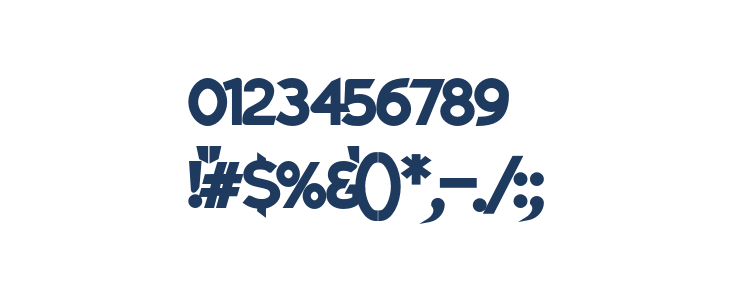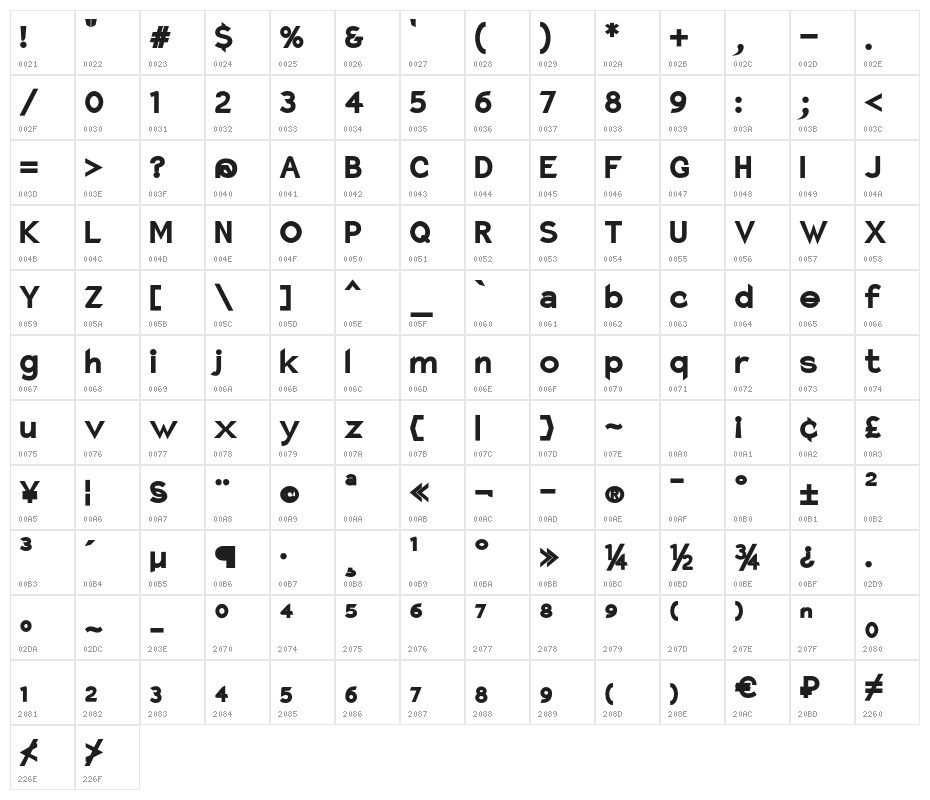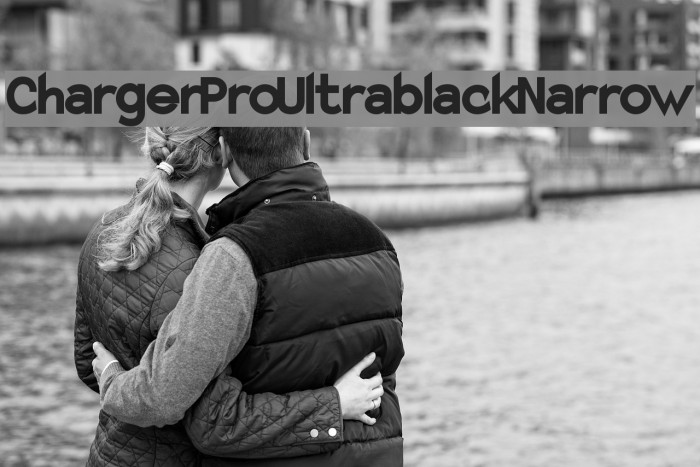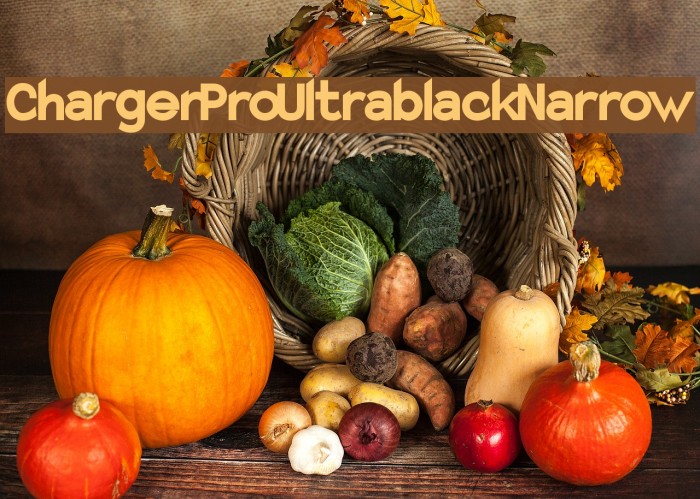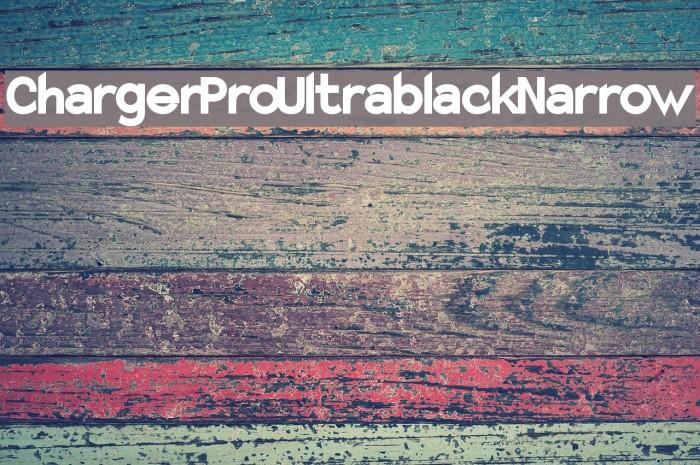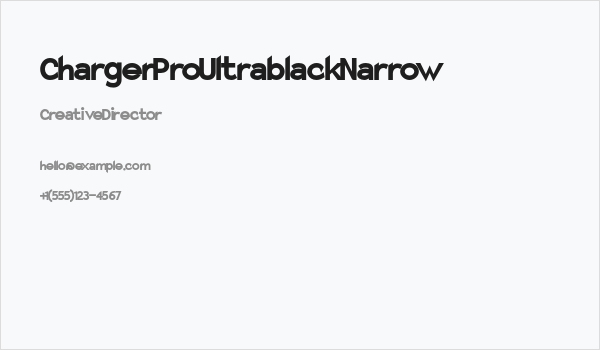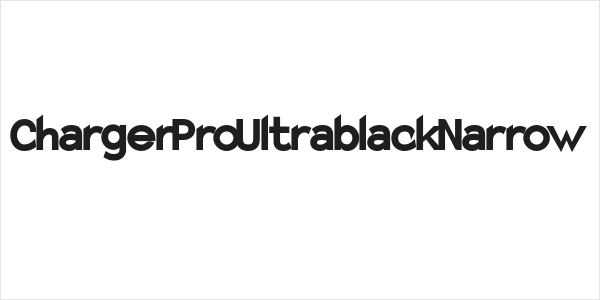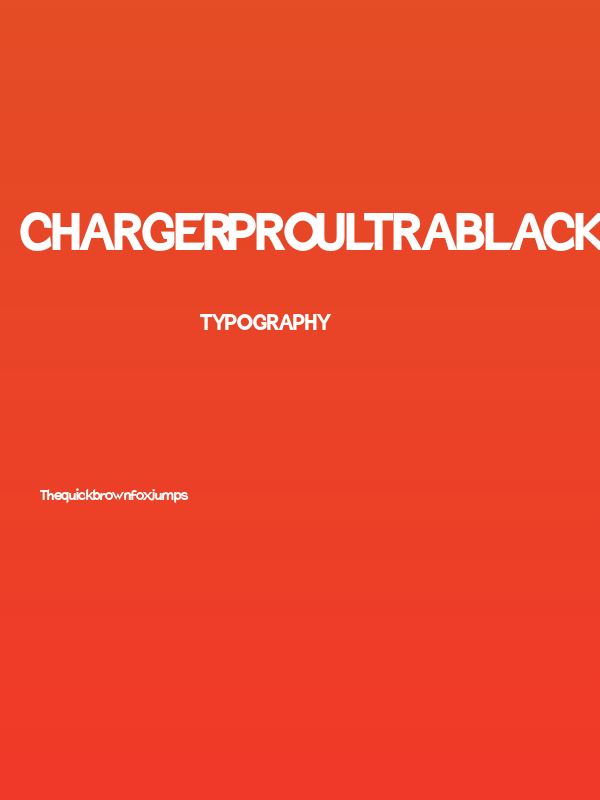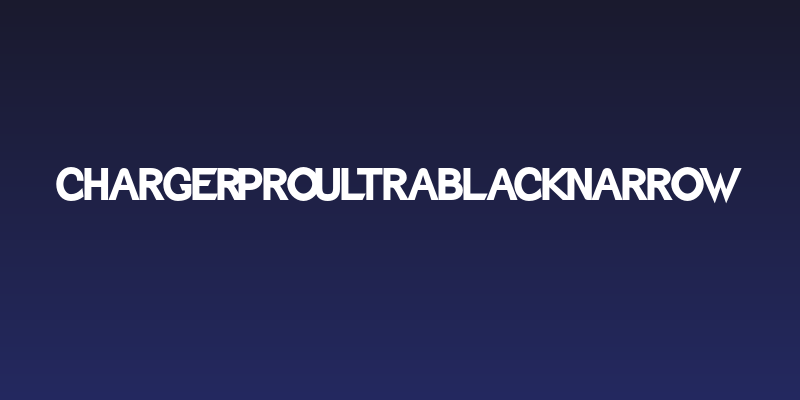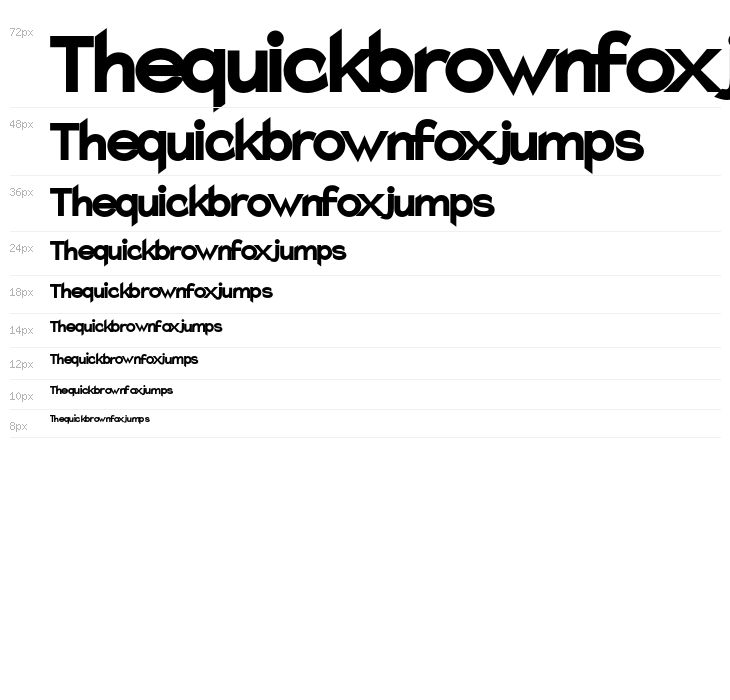
Charger Pro Ultrablack Narrow Font
Charger Pro Ultrablack Narrow Description
This typeface features a bold and striking appearance with thick, uniform strokes that create a strong visual impact. The characters are designed with a modern aesthetic, showcasing clean lines and geometric shapes. The uppercase and lowercase letters maintain a consistent style, with rounded edges that soften the overall look. The numerals and special characters are crafted to match the boldness of the alphabet, ensuring a cohesive appearance across all elements. This font's narrow width allows for efficient use of space while maintaining readability.